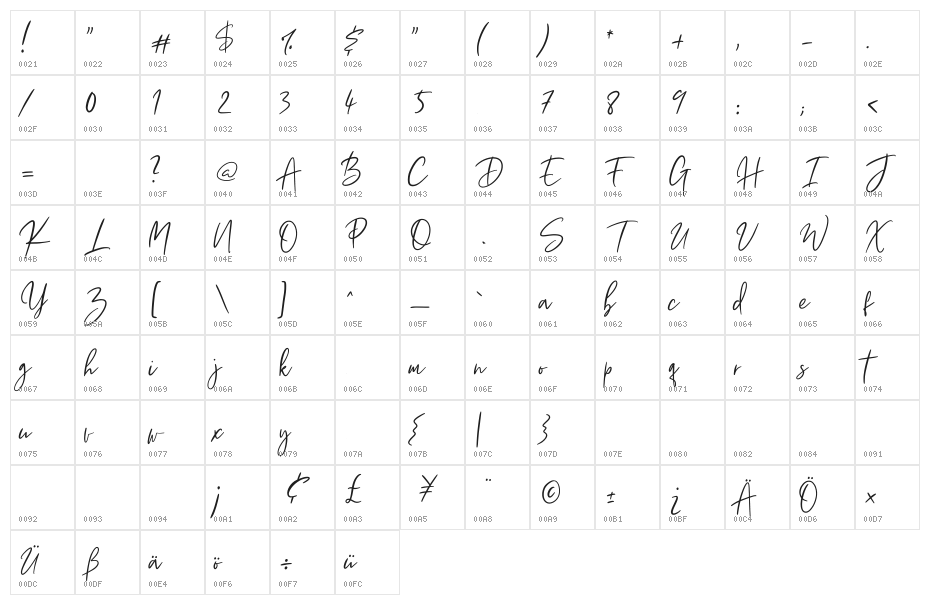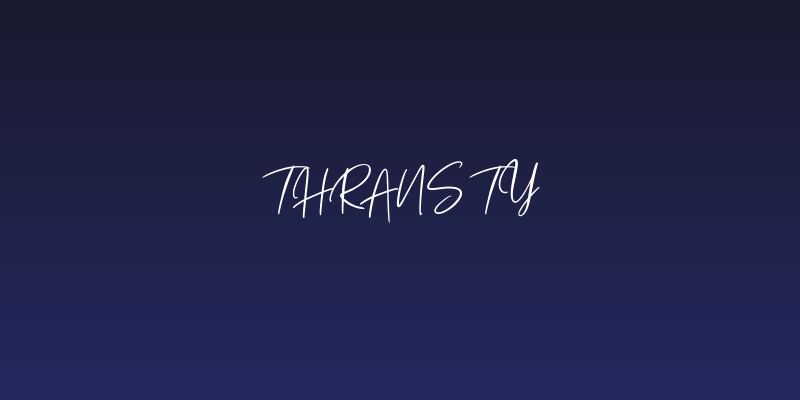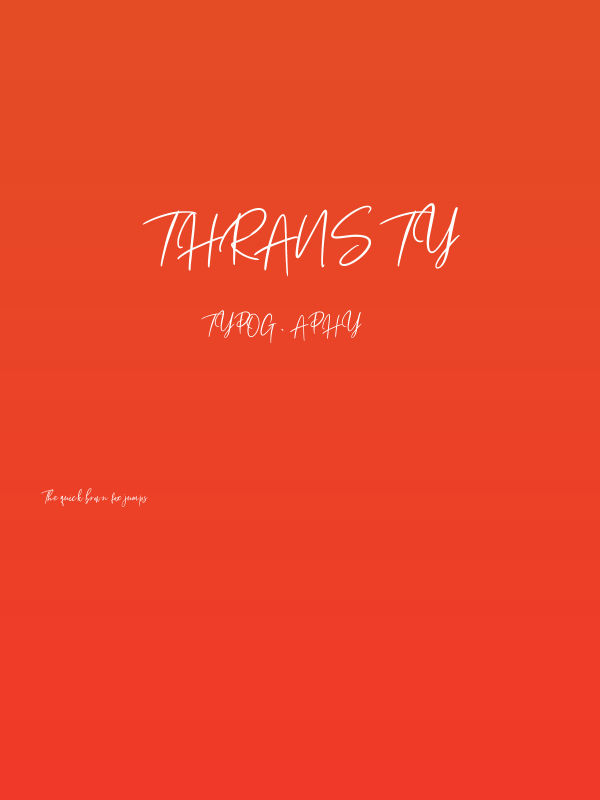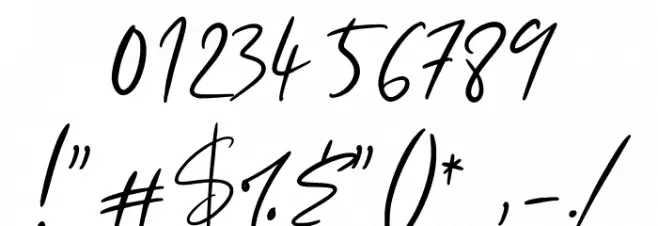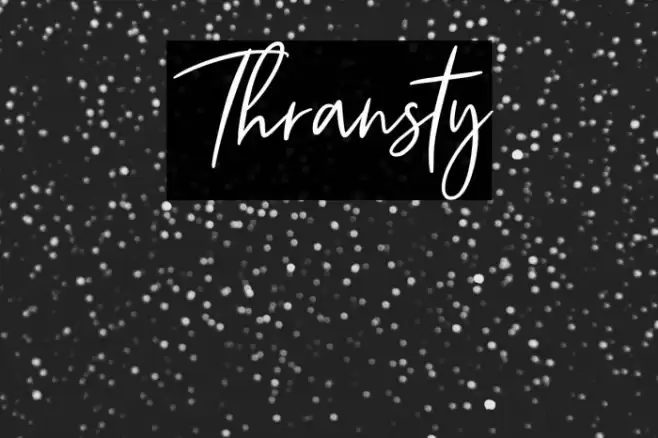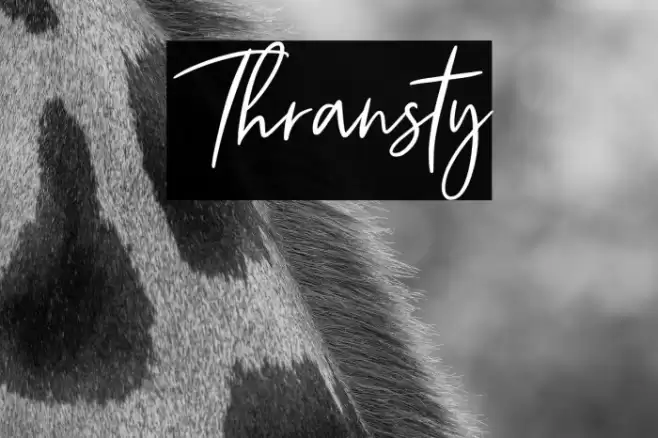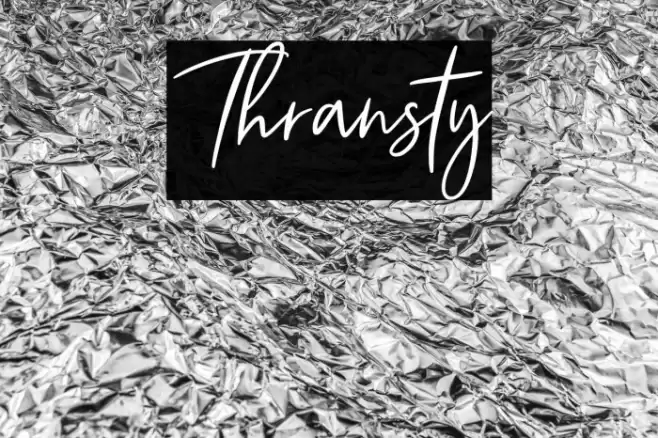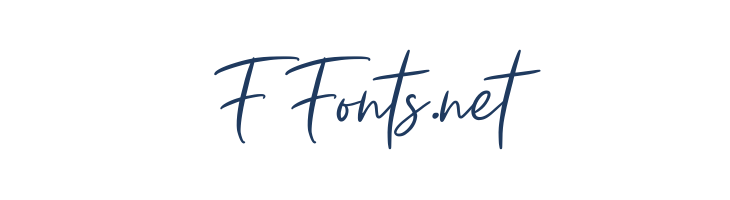
Thransty Font
Thransty Description
This font features a dynamic and expressive handwritten style, characterized by its fluid and natural strokes. The letters are slightly slanted, giving it a casual yet elegant appearance. The uppercase and lowercase letters maintain a consistent flow, with some letters extending slightly above or below the baseline, adding to its organic feel. The numerals and special characters are crafted with the same attention to detail, ensuring a cohesive look across all glyphs. This font is perfect for projects that require a personal touch, such as invitations, greeting cards, or branding materials.
| Use Case | Headlines, Logos, Invitations |
| Proposed Projects | Ideal for invitations, greeting cards, branding, and any project needing a personal touch. |